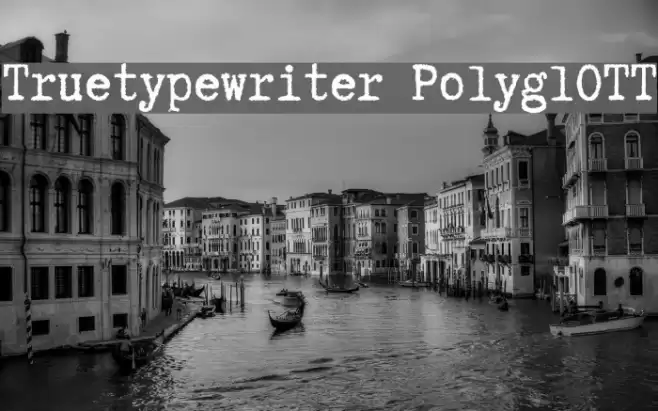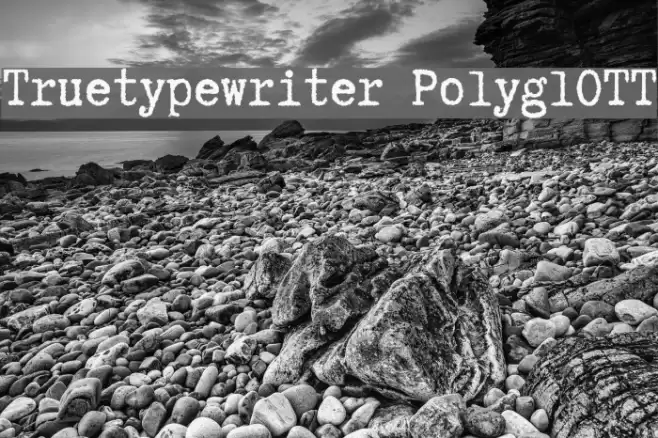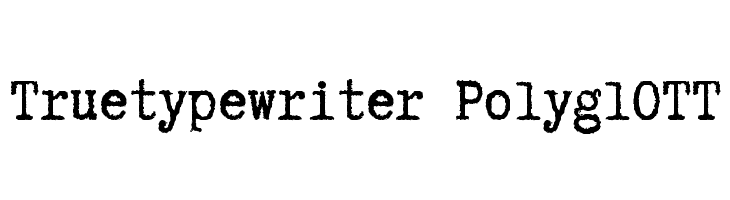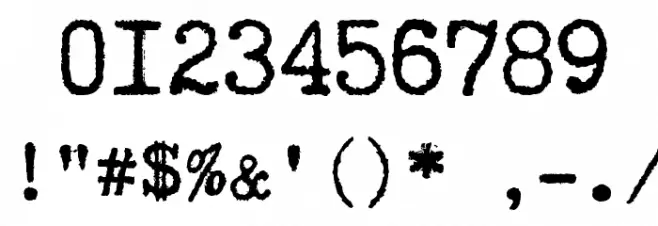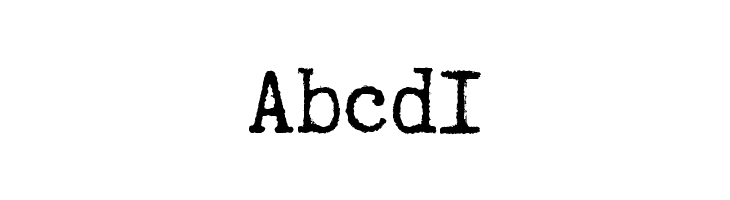
Truetypewriter PolyglOTT
This typewriter-style font evokes a sense of nostalgia with its classic, mechanical appearance. The characters are monospaced, giving it an authentic typewriter feel. Each letter is slightly irregular, mimicking the imperfections of a traditional typewriter. The font features a medium contrast in stroke thickness, with bold, dark lines that stand out clearly. The uppercase and lowercase letters maintain a consistent style, while the numerals and special characters are designed to match seamlessly. This font is perfect for projects that require a vintage or retro aesthetic, offering a touch of authenticity and charm.
A nostalgic typewriter-style font with monospaced, slightly irregular characters.
- Proposed Projects: Ideal for retro-themed designs, typewriter art, vintage posters, and creative writing projects.
- Category: Monospaced
- Overall Style: Vintage
- Use Case: Headlines, Logos, Decorative text